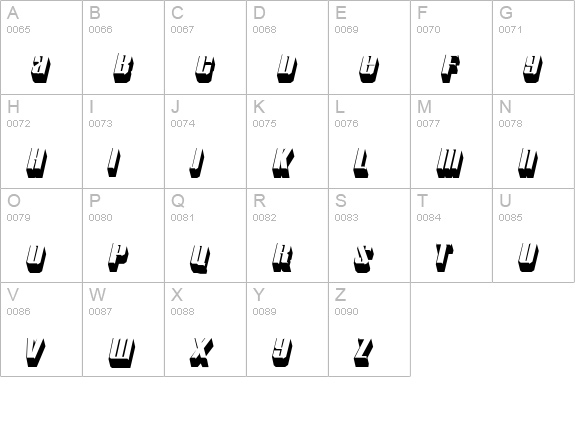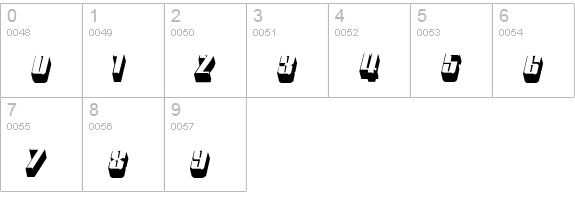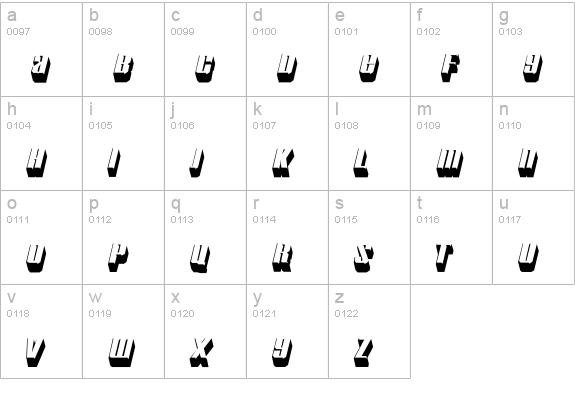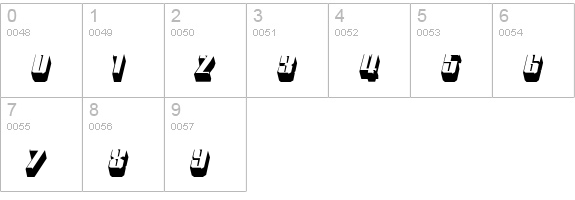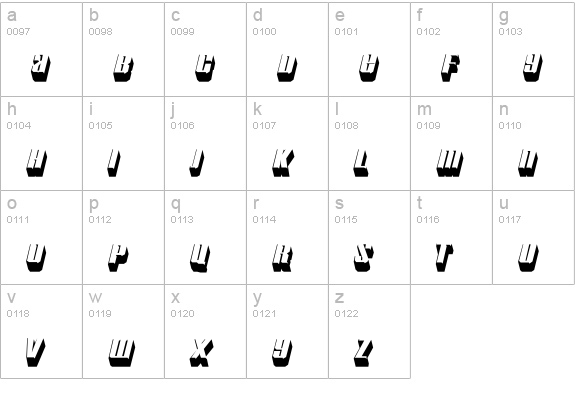
Motorcade font is a sleek and modern typeface designed for a wide range of design projects. Its bold and dynamic style makes it perfect for headlines, logos, and posters. The clean lines and sharp edges of Motorcade font give it a professional and sophisticated look that will elevate any design. What sets Motorcade font apart is that it is available for free download at FontsMarket.com. This means you can easily access this versatile font for your projects without any cost. Whether you are working on a branding project, a website design, or a print advertisement, Motorcade font will enhance your visuals with its contemporary aesthetic. With its versatility and accessibility, Motorcade font is a must-have addition to any designer's toolkit. Download it for free today and bring a fresh and modern touch to your creative projects.